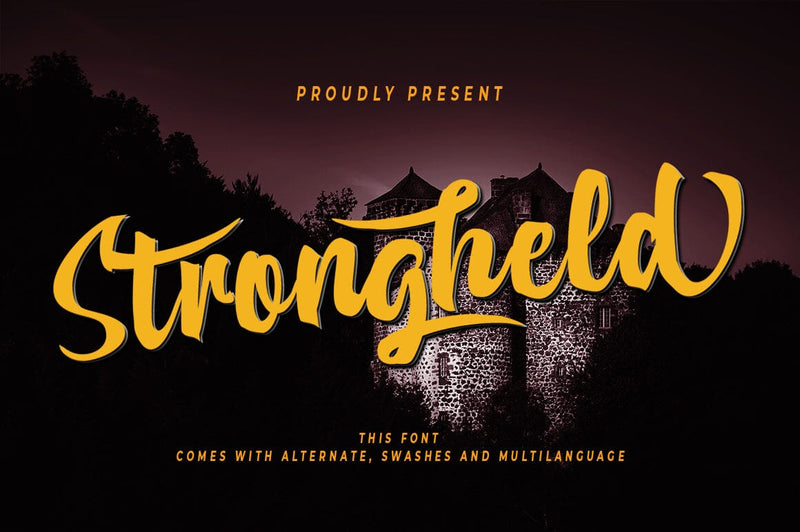
Strongheld handwritten font
Strongheld is a handwritten typeface, it’s big & beautiful.
Therefore Strongheld comes with a some stylishtic character and underlines swashes, also support multilanguage.
Some variations to make that perfect and unique design., some made simply to create a more intimate, natural impression. This font good for vintage design, t-shirt, logo, labels, posters and etc.